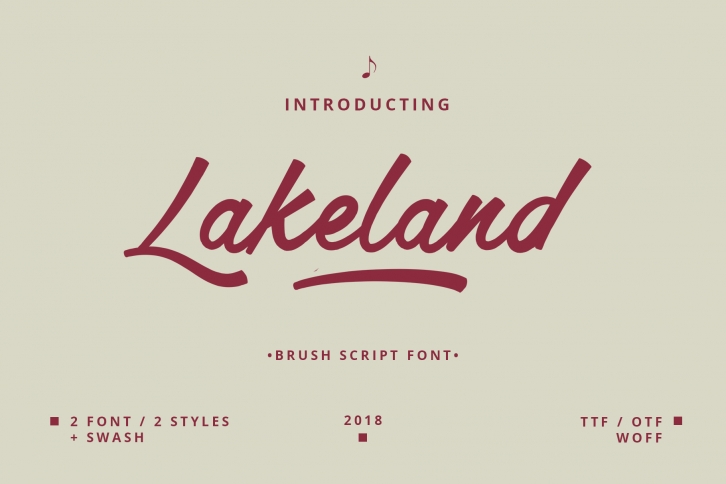
Lakeland Brush is a gorgeous font that was realeased on November 10, 2018. The font can be used in many style contexts and design environments. Perfect for invitations, magazines, websites, logos, and more! It was designed by Emyself design and the file size is 18.99 MB. Thanks for checking out this font!